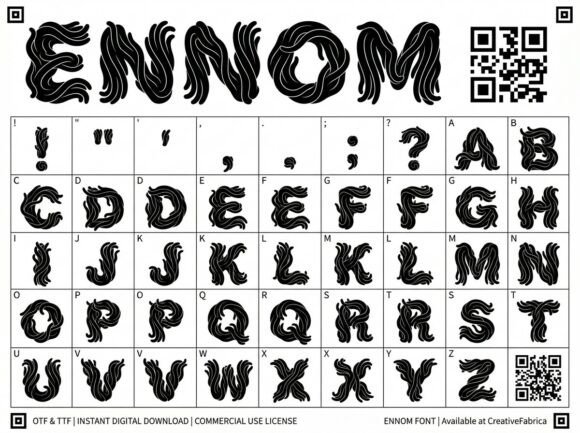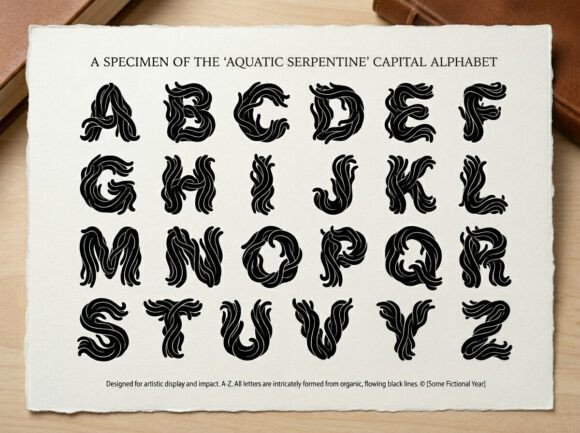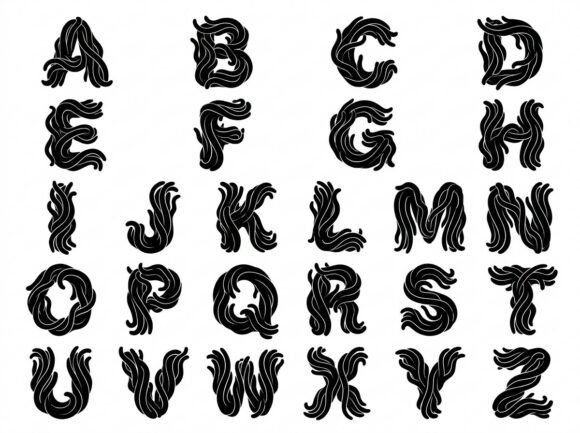
Introduction to Ennom Font
Discover the beauty of organic movement with Ennom, a unique display font built from a tapestry of flowing fibers.
Each character in this intricate typeface is artfully constructed from rhythmic, undulating strands that create a mesmerizing sense of kinetic energy and handcrafted texture The balance between its massive visual weight and the delicate, hair-like internal linework makes it an extraordinary choice for luxury spa branding, artisanal textile logos, high-end editorial headers, and unique ethereal packaging.
Key Features of Ennom Font